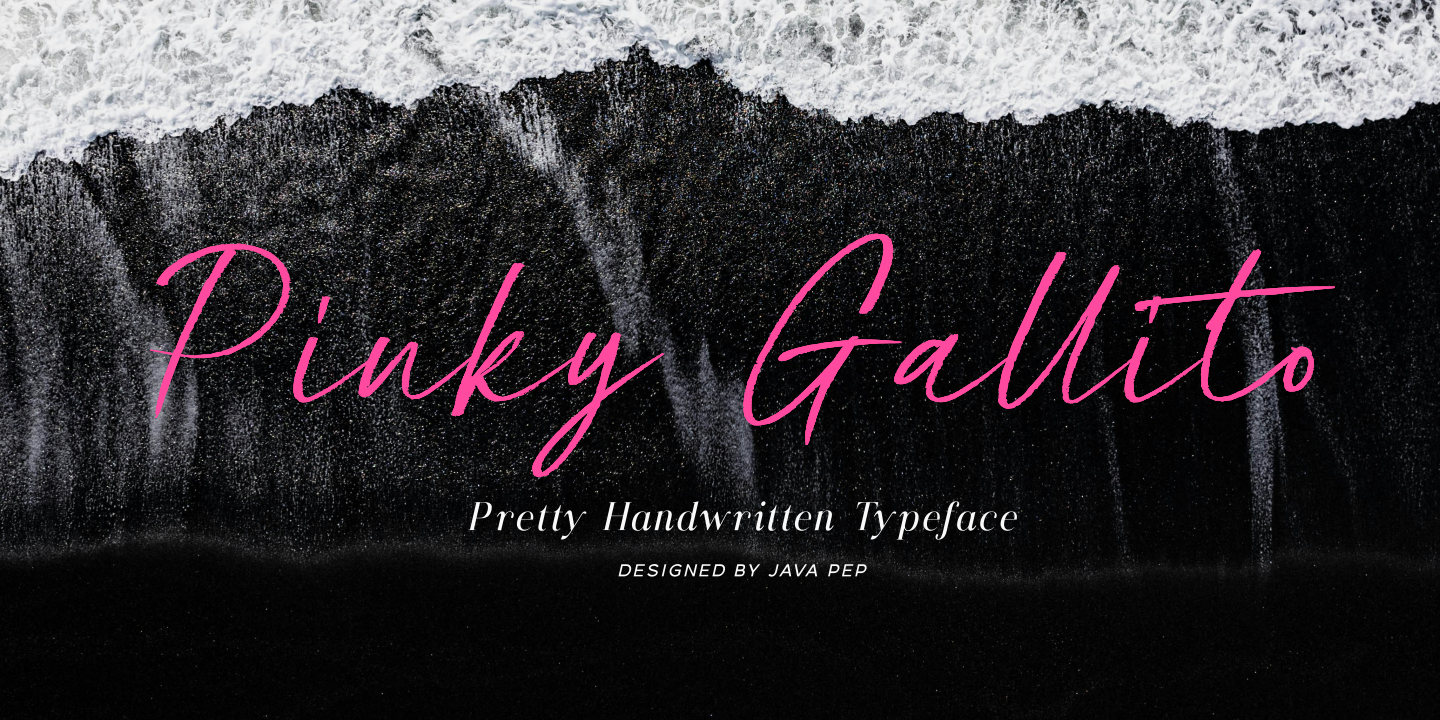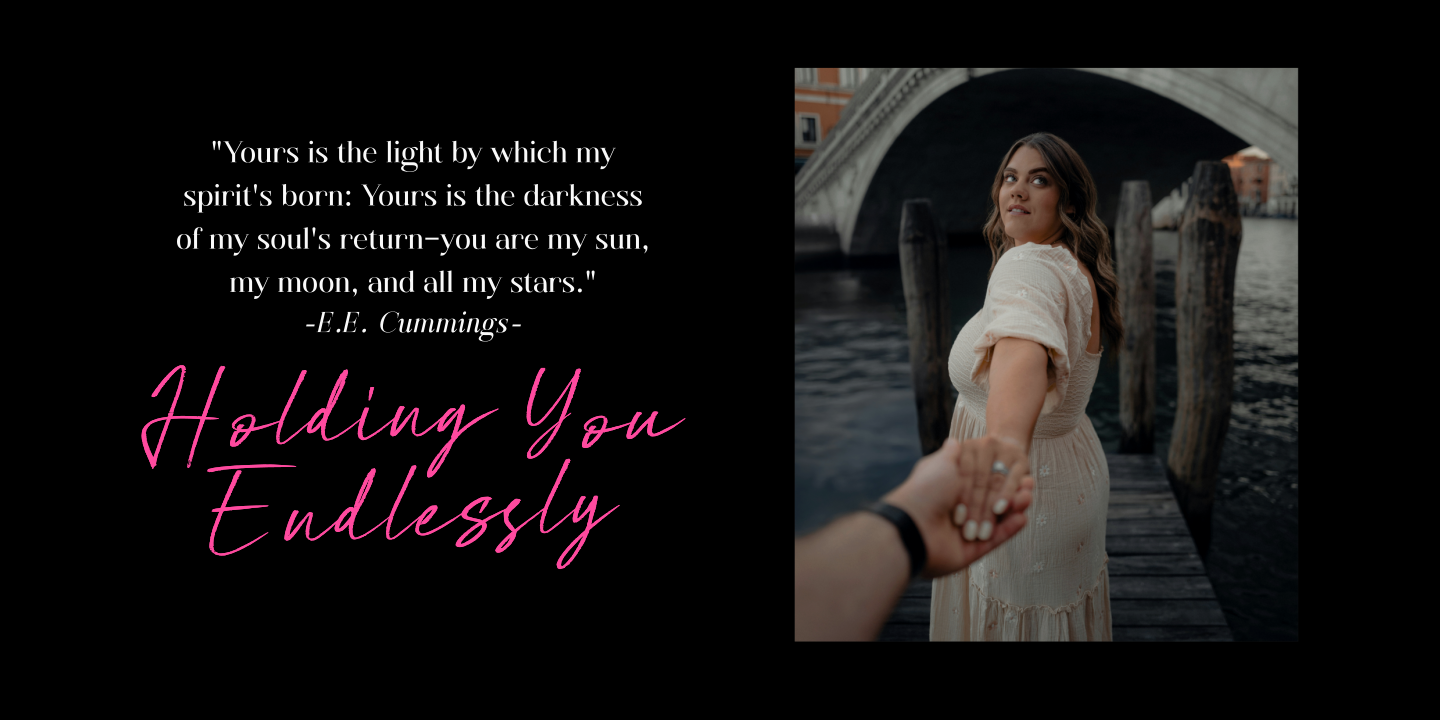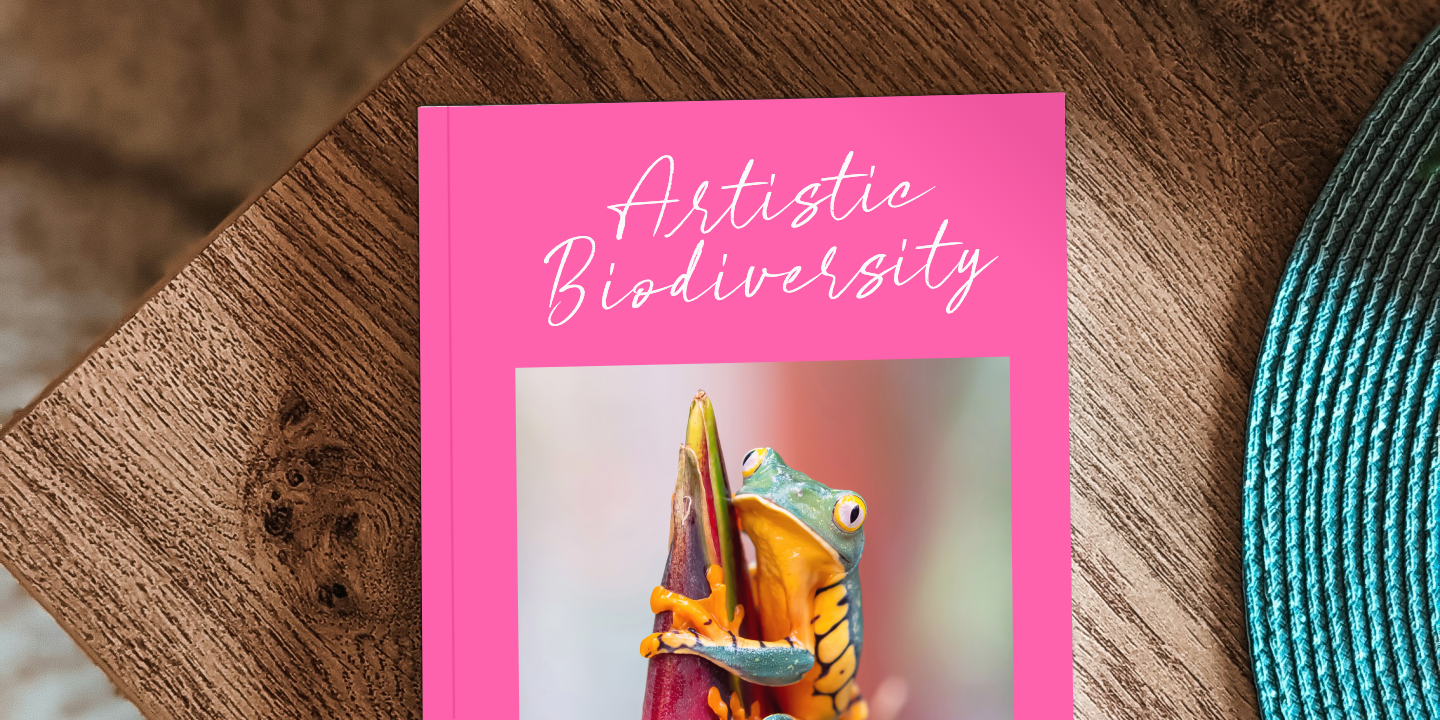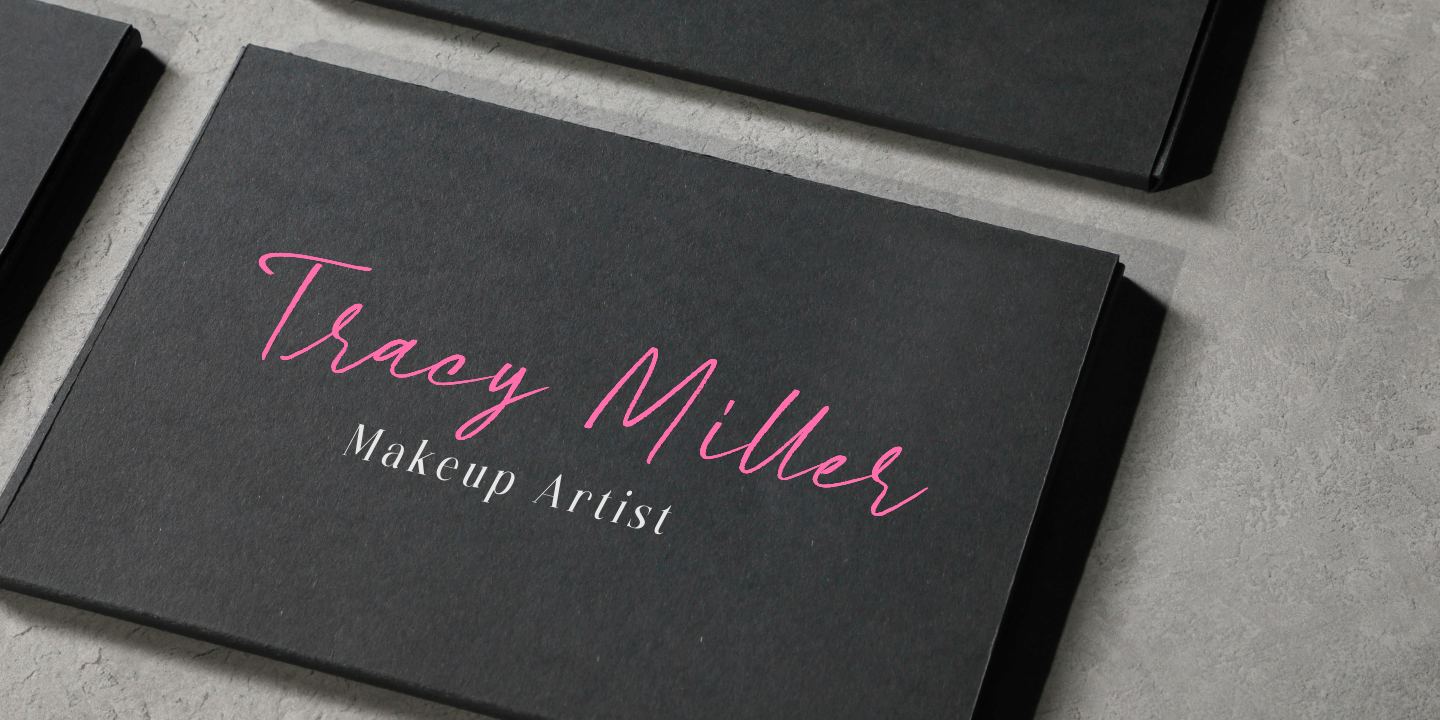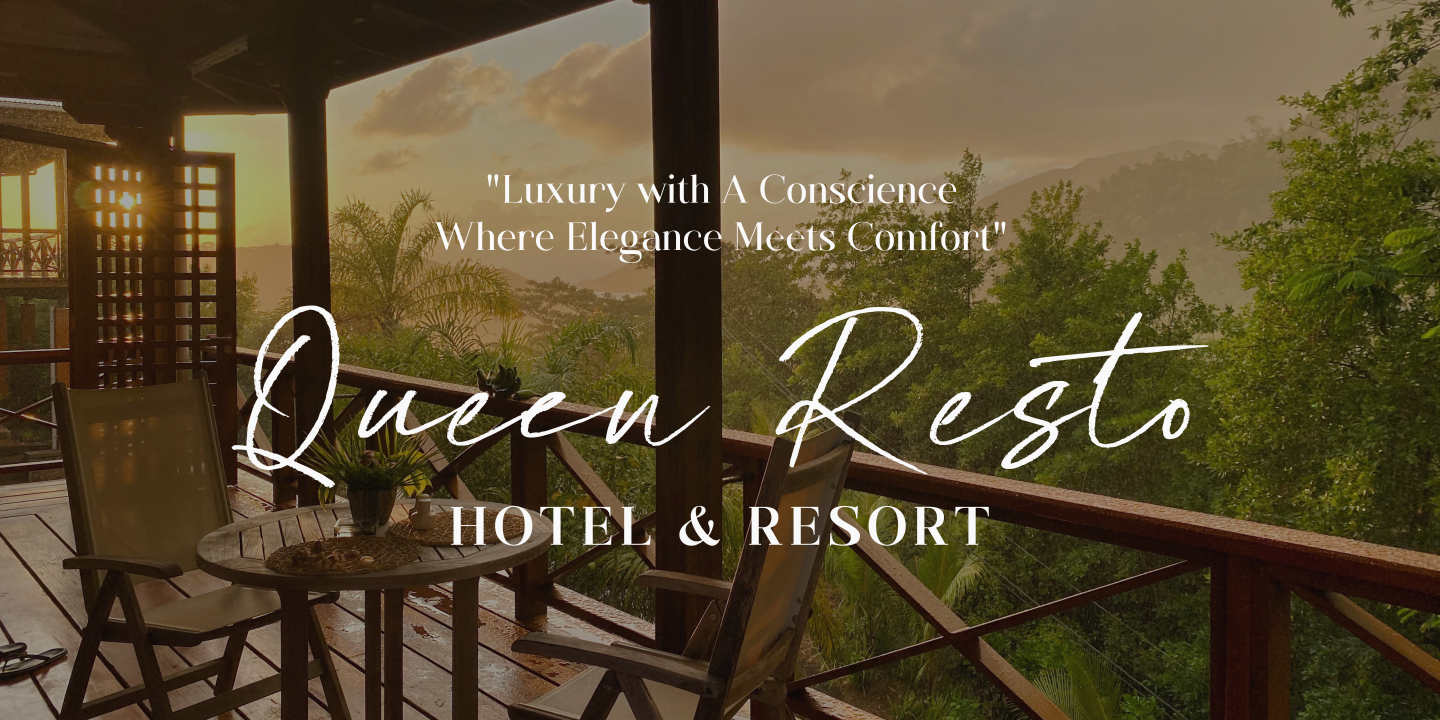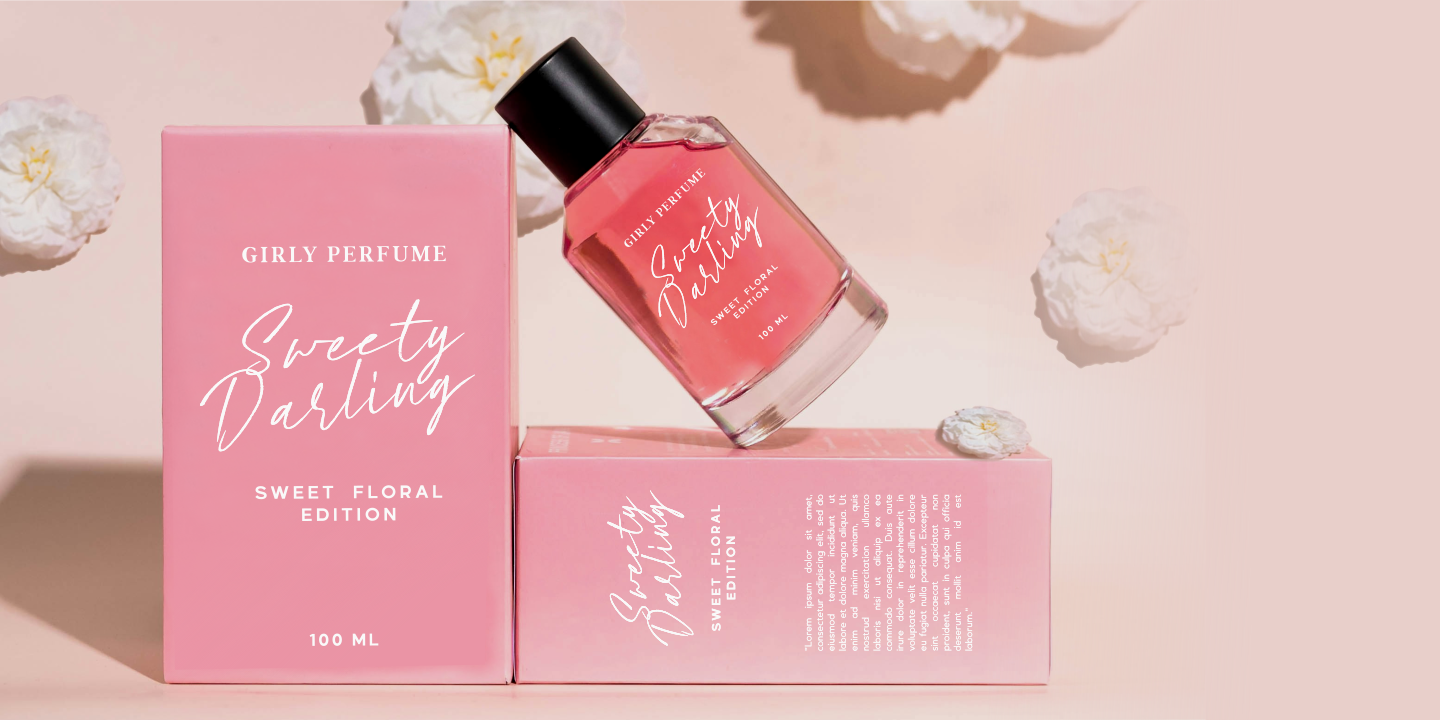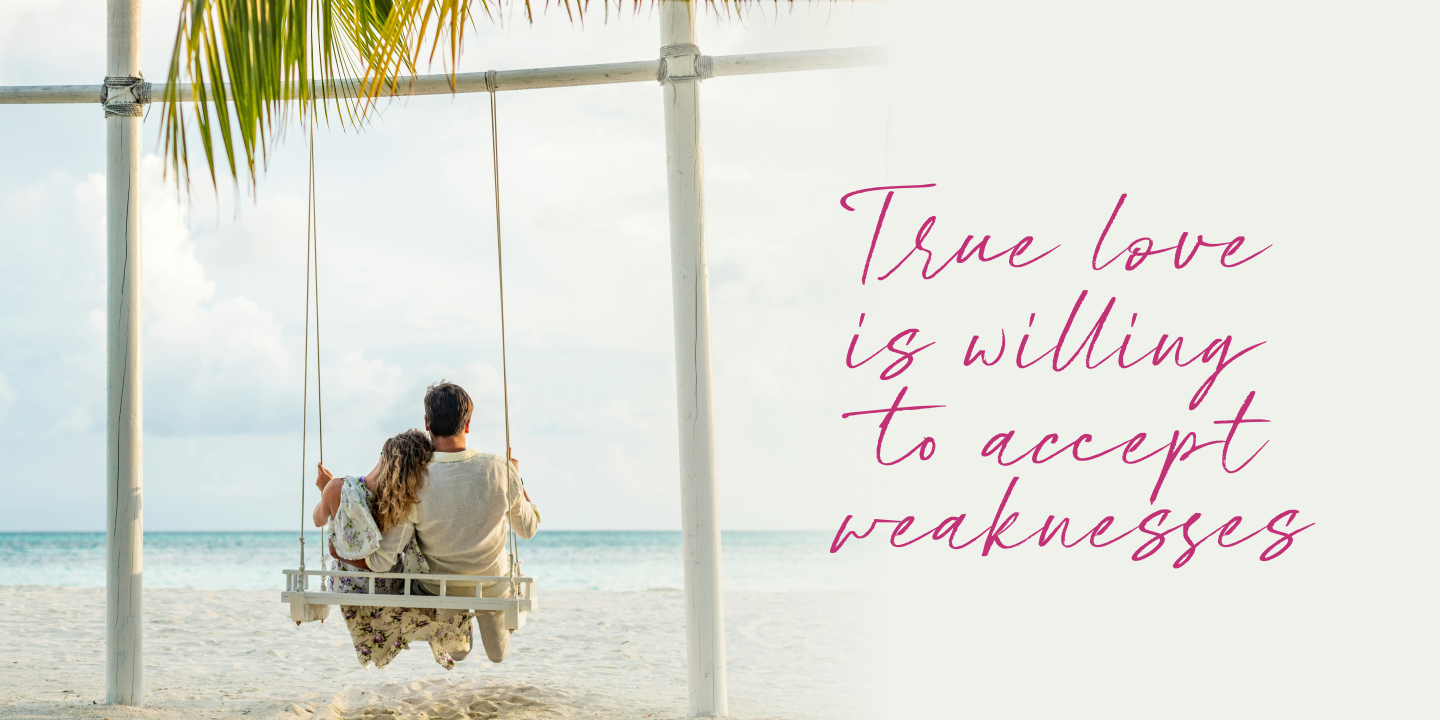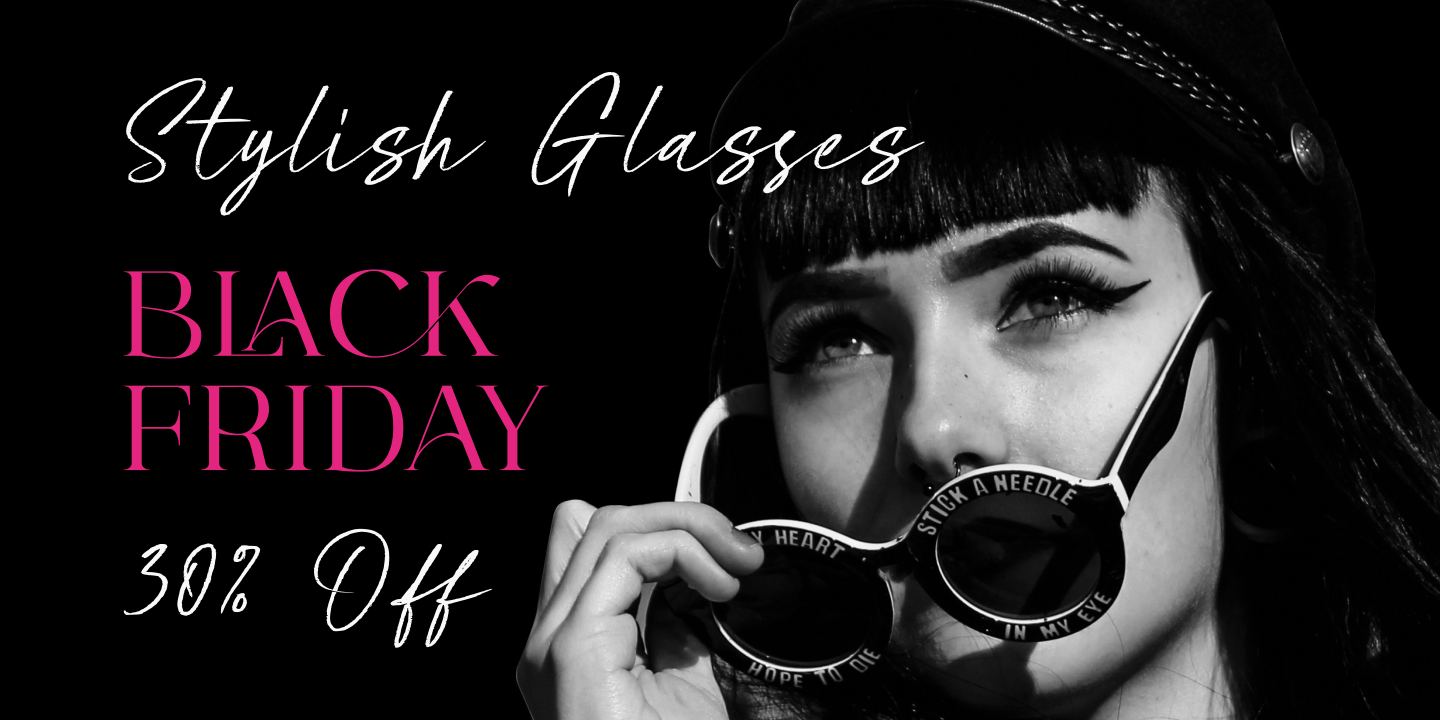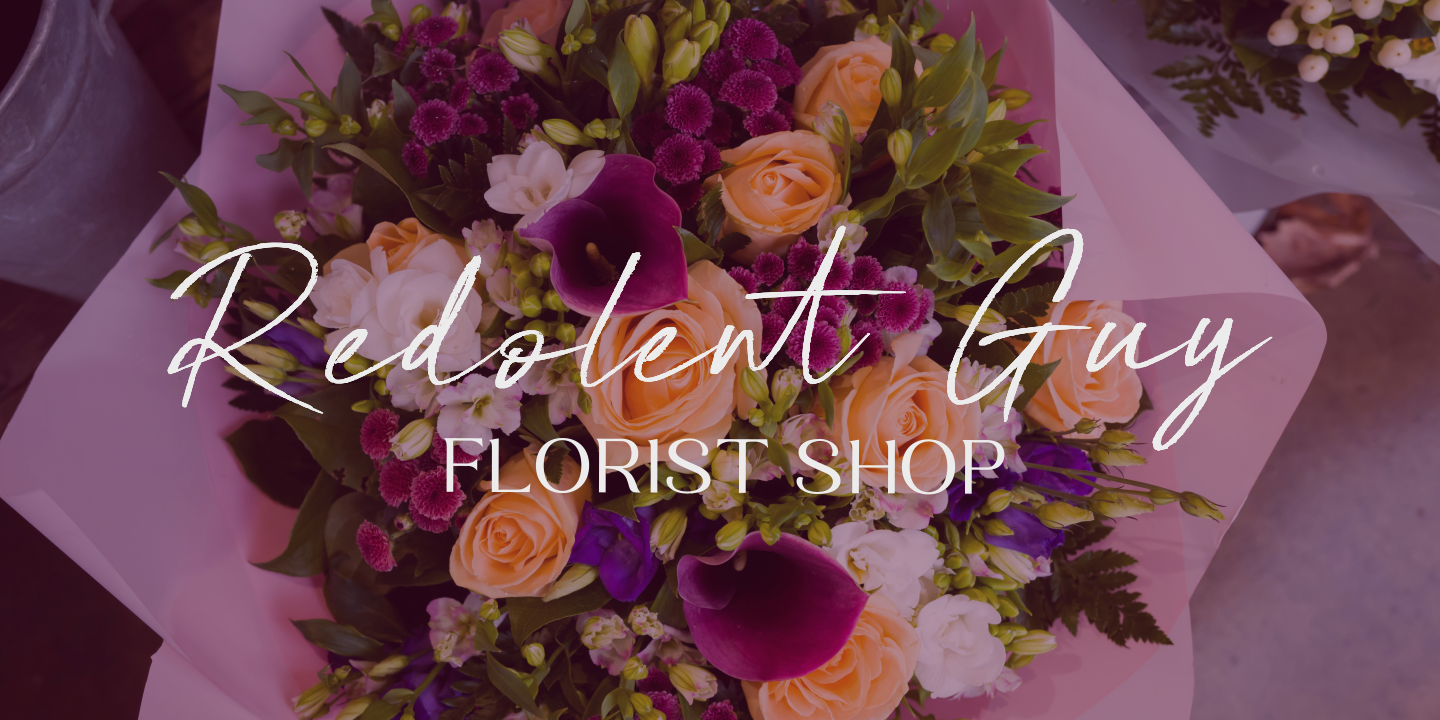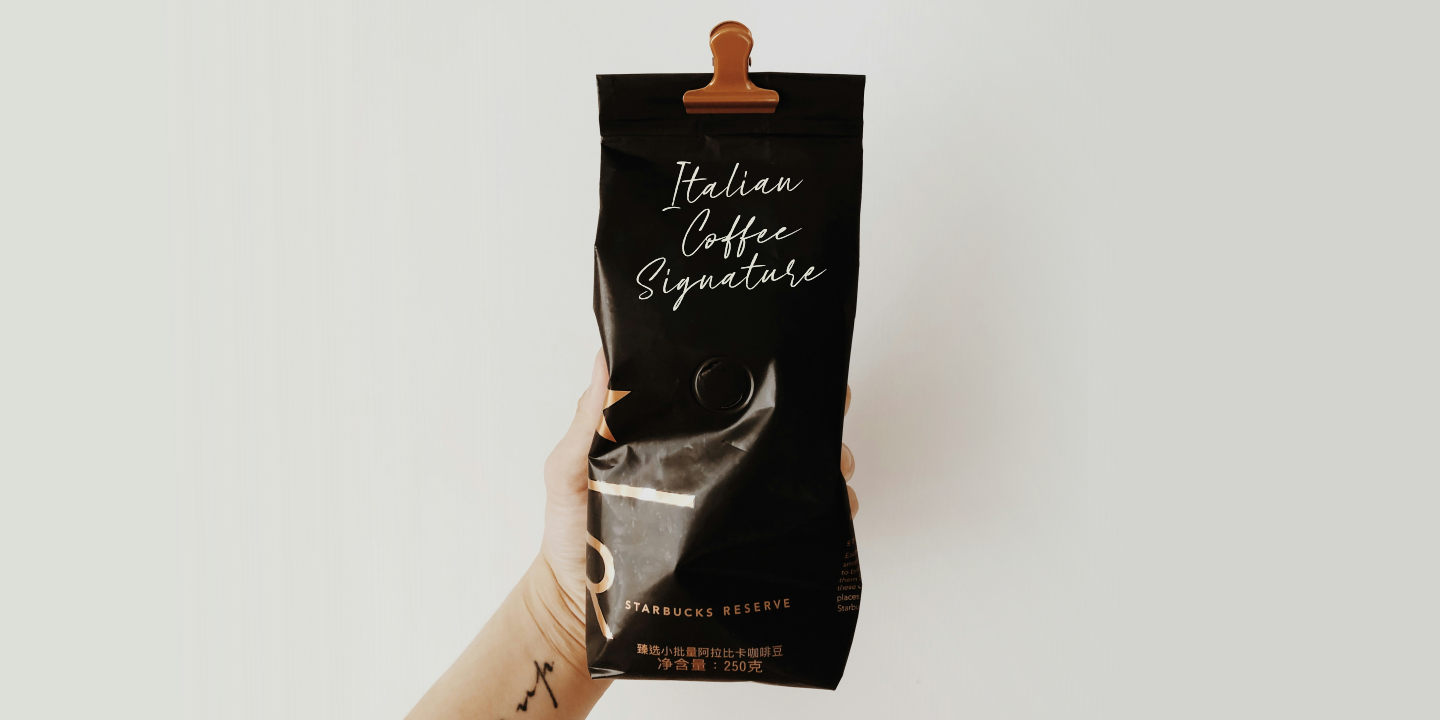
Pinky Gallito / Pretty Handwritten Font
Pretty handwritten typeface called Pinky Gallito, this font was built with the original character’s stroke, that rough shape that is affected by the ink pen. Pinky Gallito font comes with OpenType features such as ligatures, alternates, contextual alternates, and multilingual support for more than 25 languages. This font is perfect for branding, logotype, quote, headline, publishing, signatures, etc.
- Uppercase, lowercase, numeral, and punctuation
- Multilingual support, more than 25 languages